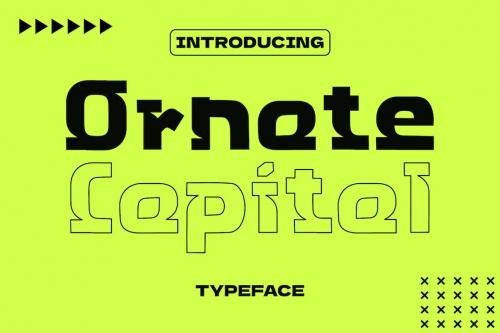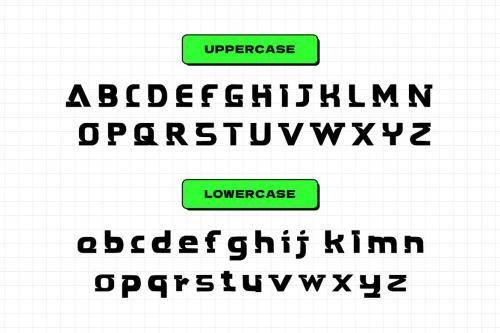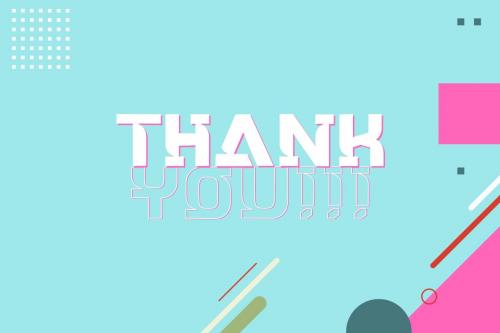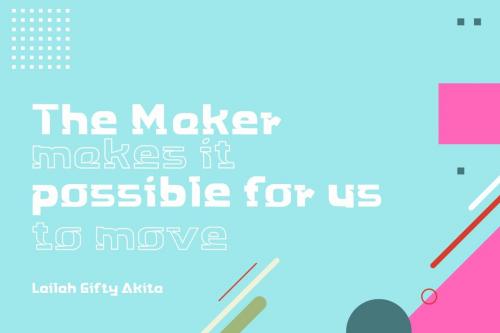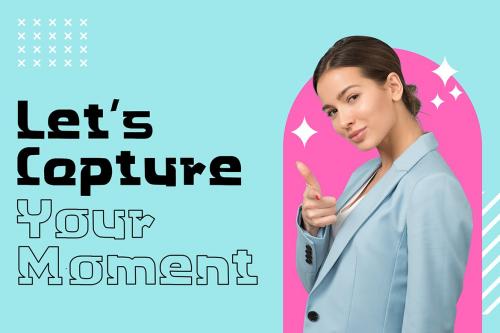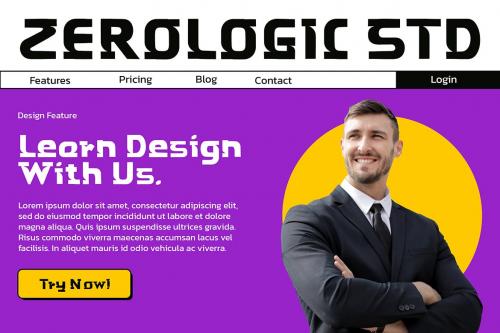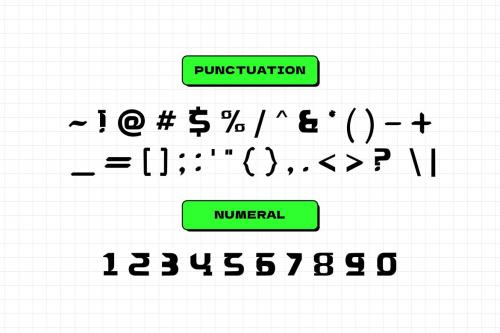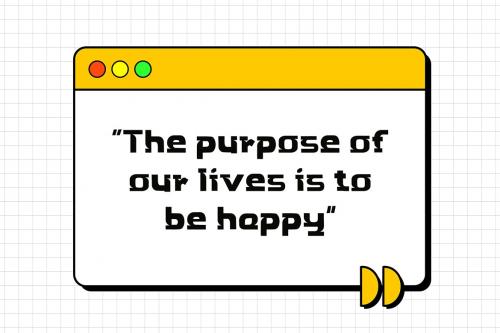
奥内塔资本字体
Ornate Capital Typeface
Hi we will introducing our new display font, the name is Ornate Capital Font very suitable for use in your work presentations such as blog design, modern design, web design, invitation cards, and others. please download and enjoy!
- UPPERCASE & LOWERCASE